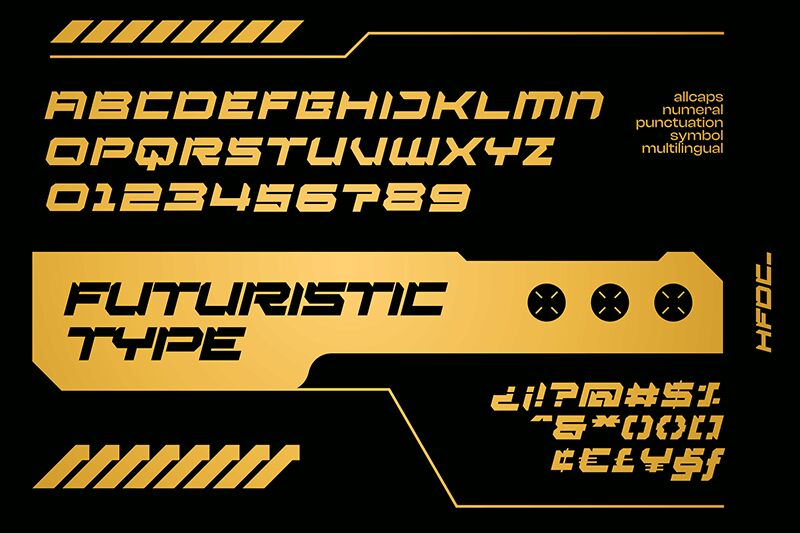
Posver
It’s clear from the first glance at Posver, an uncapped typeface crafted by Holisfonts.com, that the font carries bold lines, solid shapes, and a daring style which stems from the design of the glyphs and the overall font appearance.
Its sharp, unique characters combine a retro style with futuristic features to create the perfect font for a variety of projects, including logo branding, apparel design, poster creation, t-shirt typography design, and others.